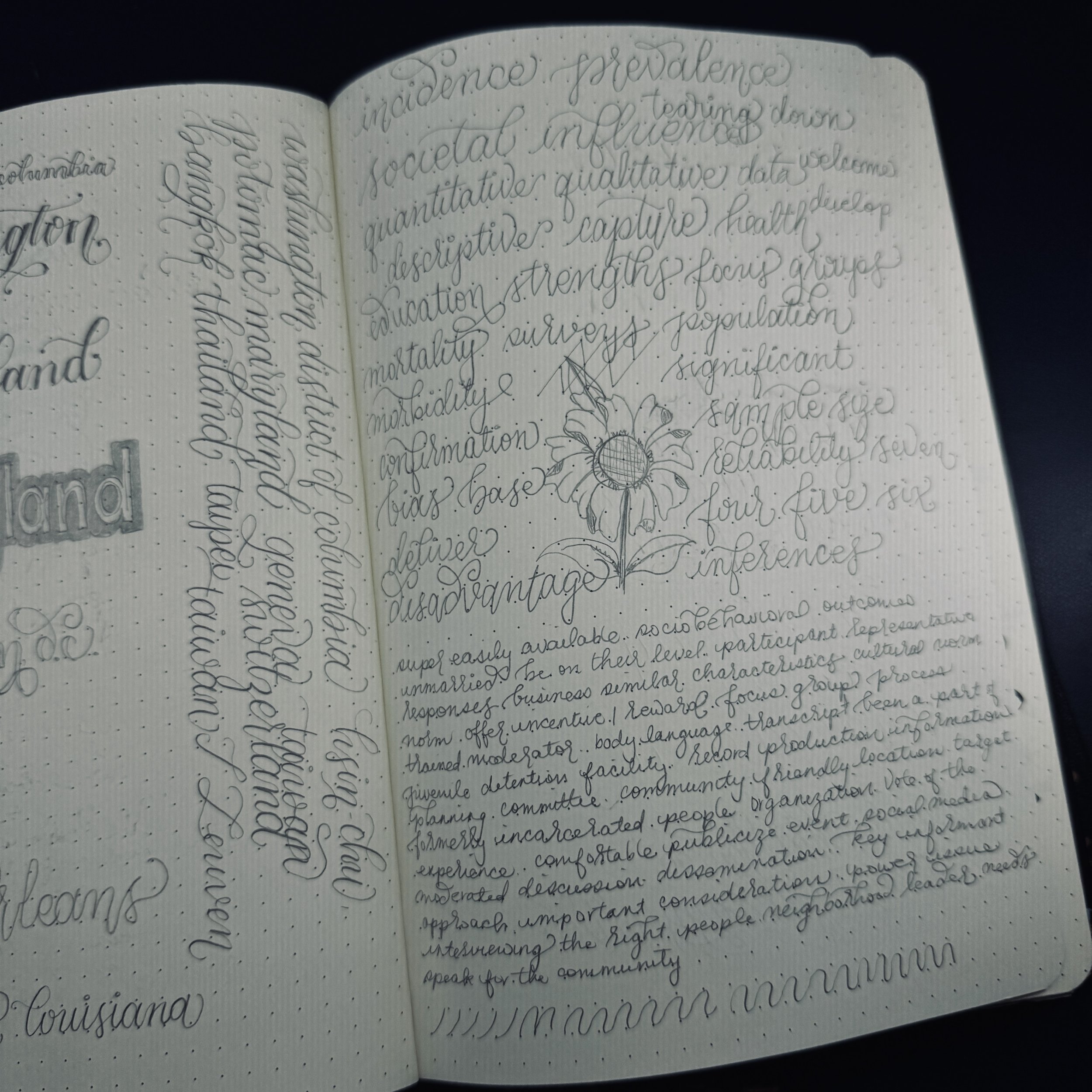
(and Persistence and... Penjoyment?) Yes, I know Penjoyment is not a word, but I wanted that alliteration! Read on to find out what the heck I’m talking about.
Today’s lettering tip isn’t so much a tutorial—it’s more like some words of advice.
I get this comment a lot:
“You’re so talented at lettering!”
And while I always appreciate the kindness behind it, I also want to shout from the rooftops: It’s not talent. It’s practice.
A lot of practice.
Like, years of it. Like, “here’s some of my old work so we can cringe together” levels of practice.
These are all the journals I practiced in, starting way back in 2019. And it’s not including all the loose leaf papers I lettered on or all the digital lettering I’ve been doing on the iPad this past year. So yah, a lot of practice. I’ll be peppering this blog post with some of my old pieces; prepare yourself!
2019
This is my first ever attempt at a lettering composition in 2019 (not including brush calligraphy since I had been learning and practicing that prior to lettering). It’s simple … and it’s honestly not that great. But it was a starting point!
The Real Answer to “How Do I Get Better at Lettering?”
Another question I get often is: “How do I get better at lettering?”
And the answer no one wants to hear: Practice. (Ugh, I know.)
But also—perseverance and persistence. And my personal favorite: penjoyment.
What the heck is (p)enjoyment?
How many of us, when we start something new, set a mental bar or picture—and if we don’t reach it quickly (let’s be honest, immediately), we walk away feeling like failures? Definitely me.
I’ve been guilty of thinking, “Well, guess I’m just not good at this,” and giving up too soon. But the only reason I’ve gotten halfway decent at lettering is because I genuinely enjoyed the process of learning. That enjoyment kept me picking up the pen/pencil/brush pen again (and again… and again) and persevered even when my lettering looked like poop or I wasn’t in the mood for doing anything creative.
If you don’t enjoy the process, it becomes so much easier to quit. And if you quit, your lettering won’t get better—no matter how much “talent” you think you have or don’t have.
Late 2019
Looking back at this today, I realize I was way more adventurous back then in my lettering. I did all sorts of styles that I no longer do. Does it look great? Not really, but again, it’s part of the learning process. I can look back at my work and learn from it.
Definitely would never do “The” that way again, but I might try that “morning” style again.
Let’s Talk About Muscle Memory
Lettering is so much about muscle memory—especially if you’re working with brush pens or pointed pen calligraphy.
When I take long breaks from calligraphy, I get rusty. My strokes feel off, and my spacing looks weird. But with a little warm-up, my hand (and brain) starts to remember the flow again. That’s the beauty of consistent practice. Your hand knows what to do, even when your brain’s still sipping coffee.
Plus, that muscle memory helps me whenever I include script or flourishes in my compositions. It’s like riding a bike... but for your hand.
And it’s the same for doing block letters or bubble letters - you can draw straight(ish) lines without rulers if you practice enough. So, not only is practice good for you to learn and develop new styles, it also makes your letters look cleaner and more consistent through the development of muscle memory.
Script Practice
This was pre-letteirng, but when I was learning calligraphy, the amount of pages I filled with random words, or words from whatever show I was watching at the time, was a lot.
And you know what kept me going with all this practicing? The fact that it was so enjoyable and such a great stress relief. There’s something about breathing in and out while my strokes go up and down that sent me into a meditative state. I didn’t care if it looked great, I was just trying to get that muscle memory down. Down stroke heavy, up stroke light, down stroke heavy, up stroke light.
So What’s the Big Advice?
Keep going. Not because you’re “naturally talented.” But because you enjoy it.
Don’t compare your Day 3 to someone else’s Year 5. And don’t be afraid to make weird, messy, off-balance lettering. That’s where the growth happens.
If you're still wondering how to improve your lettering:
Practice regularly (even short sessions count!). I did two years straight of lettering almost everyday. Some days were long sessions, other days were a short 15 minute session. Every little bit helps.
Focus on enjoying the process. It’s all about the journey, not the destination. Especially in the beginning.
Forgive yourself when things look wonky. It’s ok! You’re exploring and learning!
Celebrate your progress—especially the cringey old stuff. When I flip through my old journals, I always feel a huge sense of accomplishment. Look at how far I’ve come, and all those days, years, months of practice was not for nothing.
Until then—keep showing up, keep lettering, and keep finding joy in the process.
Oh, and one final piece of advice, label your journals by month/year so you can see just how far practice (and penjoyment!) can take you in chronological order. I definitely had some difficulty remembering which journal was from what year. Heh.
Here are a few more lettering pieces through the years!